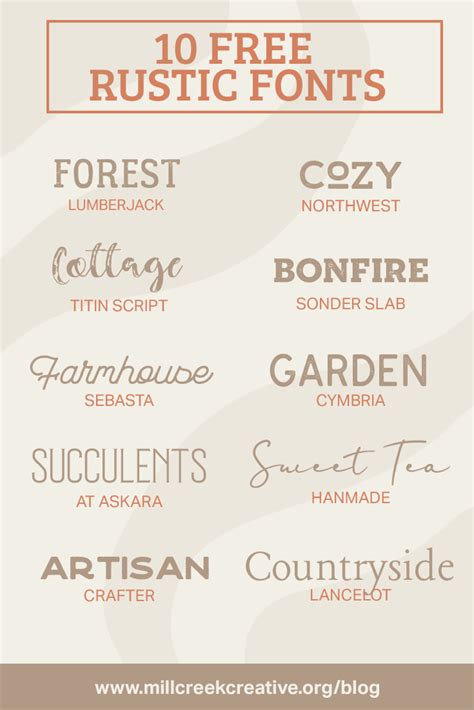
Charming and Free: Unveiling the Best Collection of Rustic Fonts for Commercial Use!
With our rustic font collection, you can give your designs a unique and charming look, making them stand out from the rest.
Our collection includes everything from hand-drawn script fonts to vintage serif fonts, providing a variety of options for any design project.
Fonts are an essential part of any design project. Whether it’s a logo, website or marketing material, the font used can significantly impact how a design is perceived. Rustic fonts have been growing in popularity, with their countryside charm and old-world feel. This article will explore the best collection of rustic fonts available today, which are suitable for commercial use.
The importance of choosing the right font
Choosing the right font can make or break a design. It can evoke different emotions or set a tone. For instance, if you’re designing a logo for a law firm, you may want to use a font that is more formal, while a restaurant may want something more playful. So, when selecting a rustic font, it’s important to consider the context in which it will be used.
Charming Free Fonts
1. Cedarville Cursive
Cedarville Cursive is a lovely handwritten font that would add a personal touch to your designs. Its elegant curls will remind you of old-fashioned penmanship, and its slightly slanted letters give it a playful edge.
2. KG Second Chances Sketch
If you’re looking for a font that captures the essence of a hand-drawn sketch, then KG Second Chances Sketch is the font for you. Its uneven lines and smudges create a charming rustic feel.
3. Mountains of Christmas
This font was created for the holiday season but is versatile enough to be used all year round. Its scratchy texture and hilly letters give a warm and cozy feeling of being nestled in the mountains.
4. Rustler
Rustler is a bold font that packs a punch. Its thick lines and sharp edges convey a sense of rebellion, adventure and living off the land that many will find appealing.
Paid Rustic Fonts
5. Azzurro
Azzurro is an excellent choice for those who want a rustic font but need a highly legible option. Its thick brushstrokes and well-defined letters make it easy on the eyes, while still having a rugged feel.
6. Johnny Two Shoes
Johnny Two Shoes is an all-caps font that gives a bold rustic impression. Its dark scratchy lines and chunky letters look like they have been carved from wood, making it perfect for signage or branding for carpentry or construction company.
7. Sweetgrass Typeface
Sweetgrass Typeface is a highly refined rustic font that blends the allure of the outdoors with elegant script. Its curves, loops and swirls offer a unique blend of sophistication and roughness that is perfect for upscale restaurants, bars or wedding-related designs.
8. Wilder Font
Wilder Font has a hand-drawn quality that brings to mind a walk in the woods. Its gentle curves and rustic texture give it a sense of authenticity and warmth that is becoming increasingly popular in the design world.
In conclusion, rustic fonts are a great way to add an earthy charm to your designs. Whether you opt for free or paid versions, there are countless options available that can convey a sense of ruggedness and appeal to a wide range of audiences. Ultimately, the choice of font comes down to the client’s needs, budget, and target audience. By considering these factors, you're sure to discover the perfect rustic font for your next design project.
| Free Rustic Fonts | Paid Rustic Fonts |
|---|---|
| Cedarville Cursive | Azzurro |
| KG Second Chances Sketch | Johnny Two Shoes |
| Mountains of Christmas | Sweetgrass Typeface |
| Rustler | Wilder Font |
Looking for the best collection of rustic fonts for commercial use? Check out our Charming and Free font collection! Here are some of the most common questions people ask:
- What are rustic fonts?
- Rustic fonts are decorative typefaces that have a rustic, vintage or hand-crafted feel. They often feature rough edges, distressed textures and ornamental elements such as swashes or flourishes.
- Can I customize rustic fonts?
- Yes, you can customize rustic fonts by adjusting their size, color, spacing, and other typographic features. However, make sure to respect the font designer's creative work and avoid altering the font's design or distribution without permission.